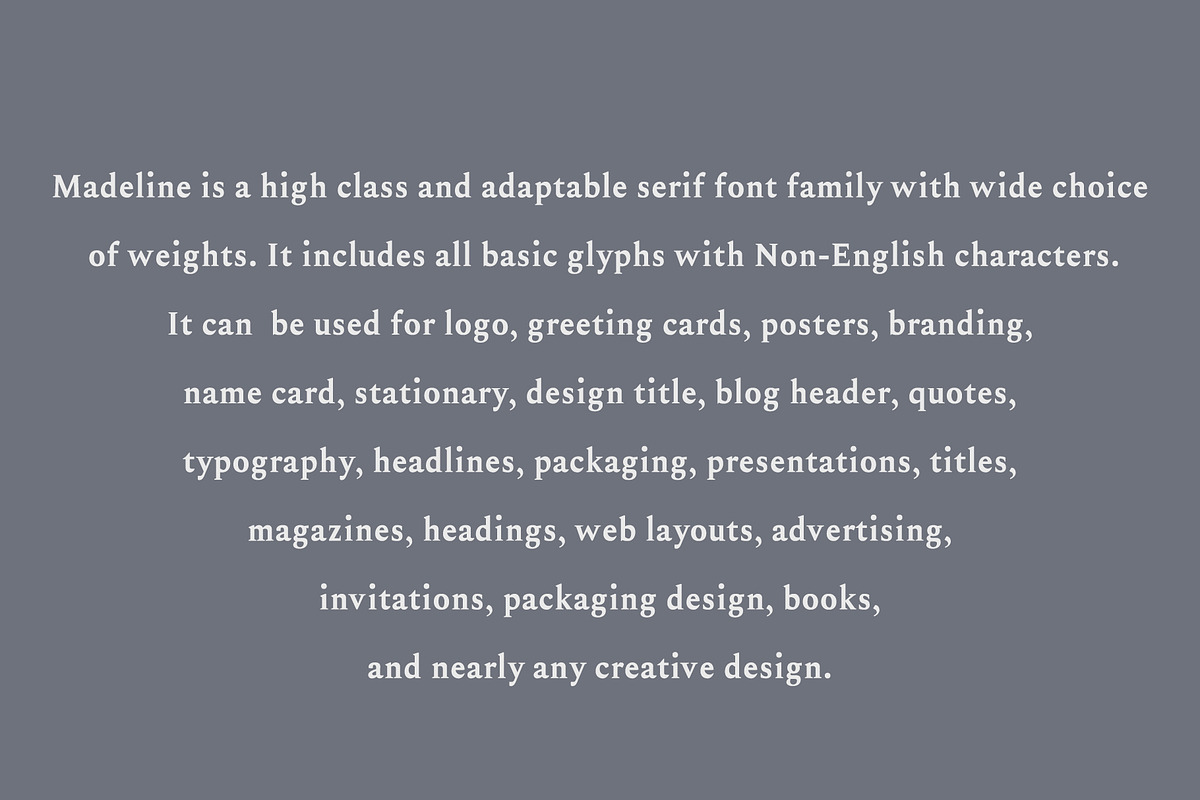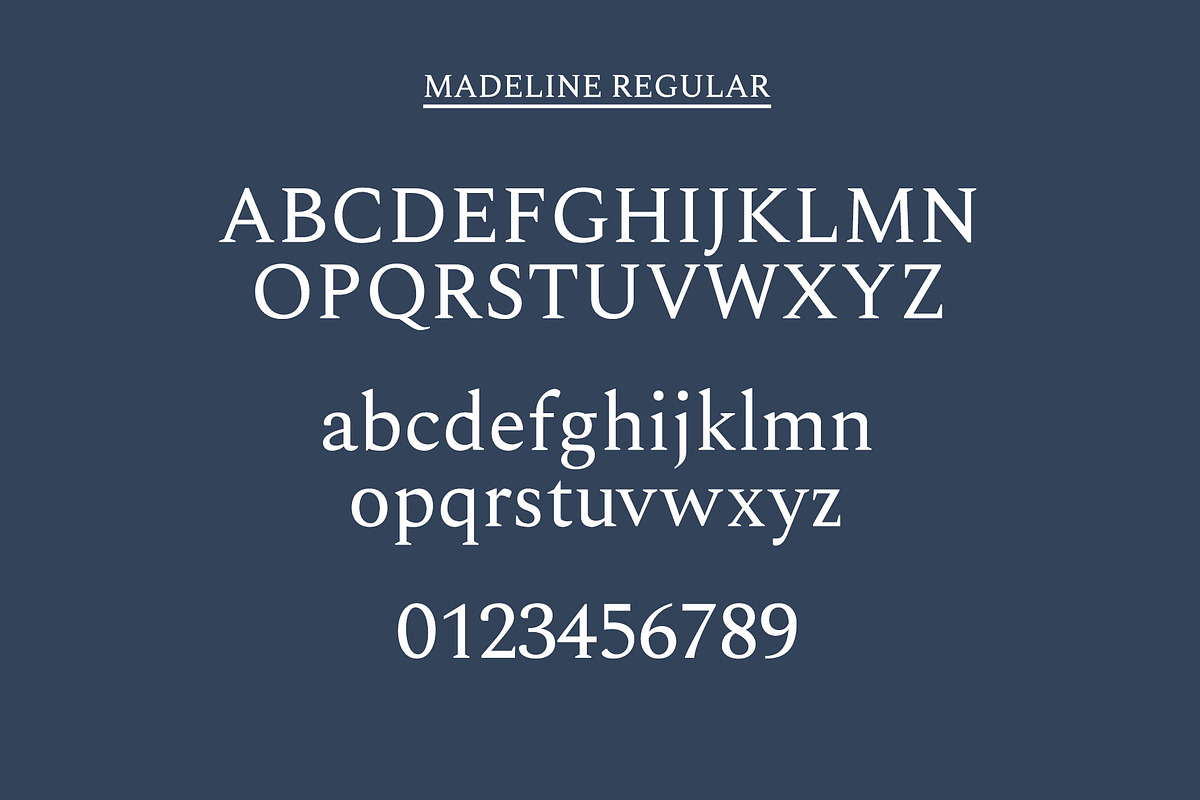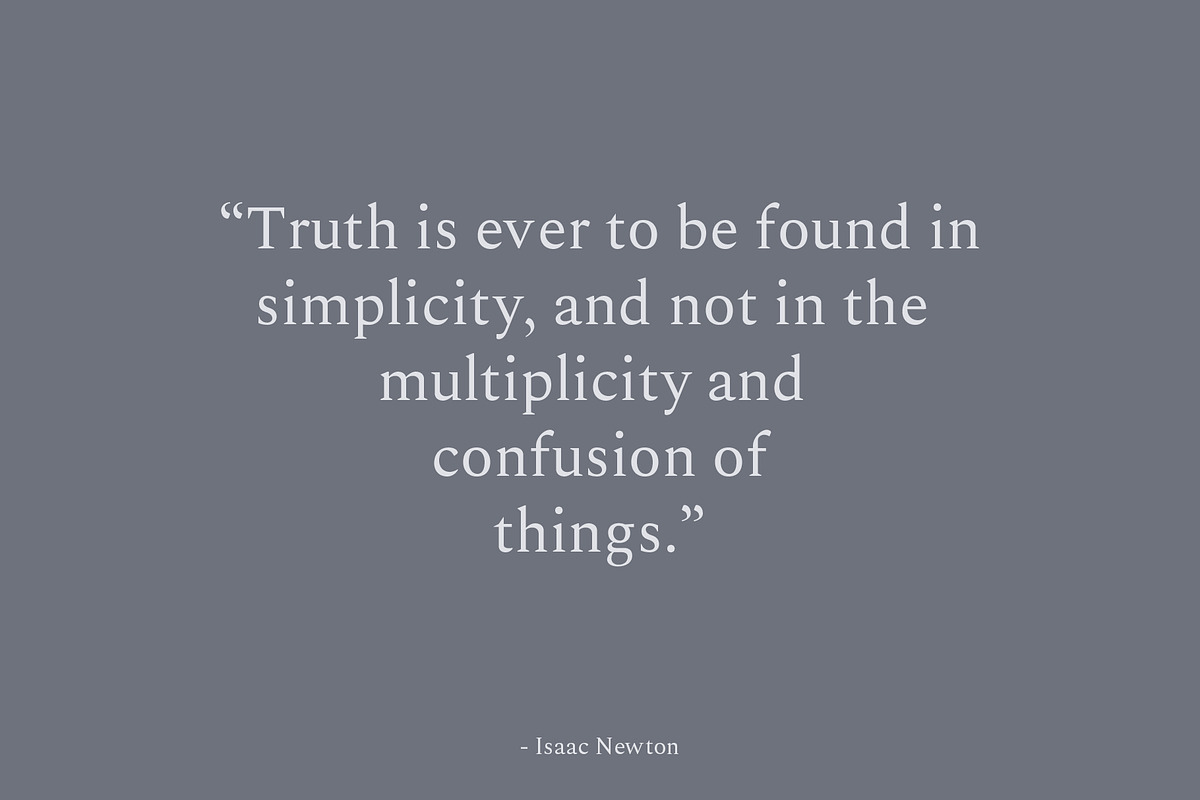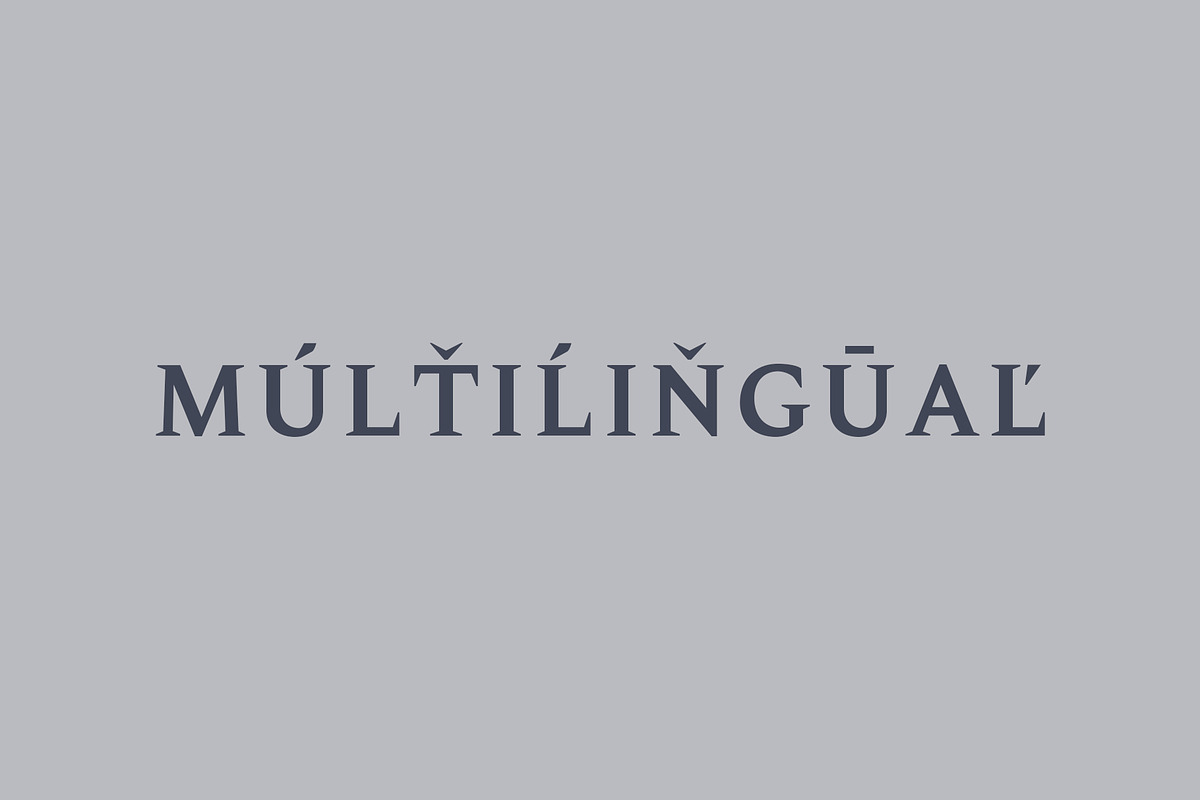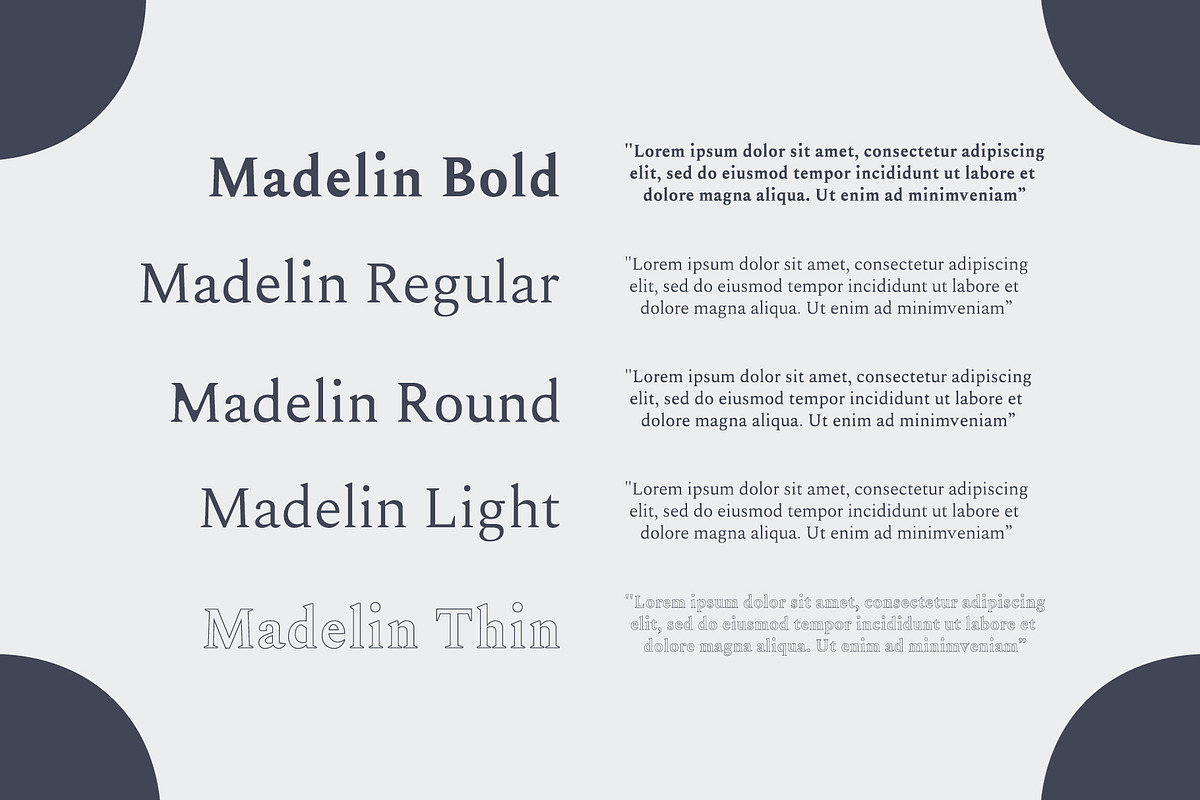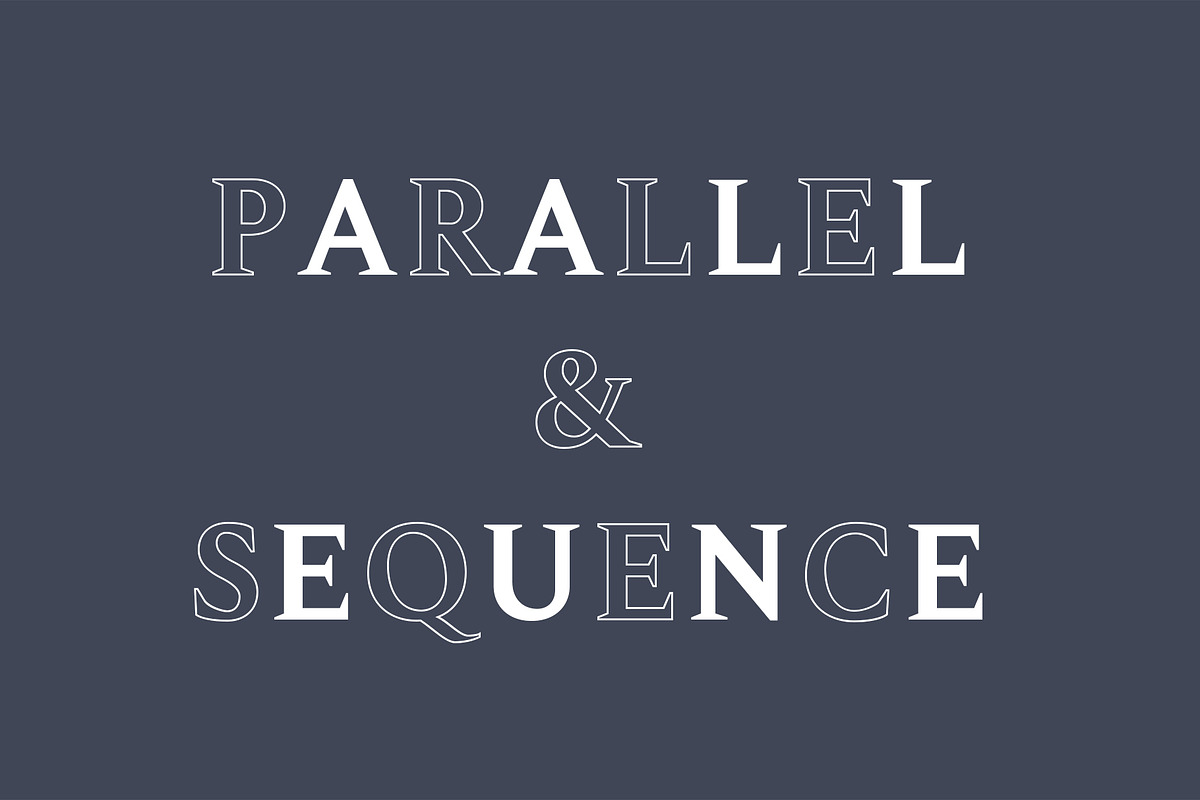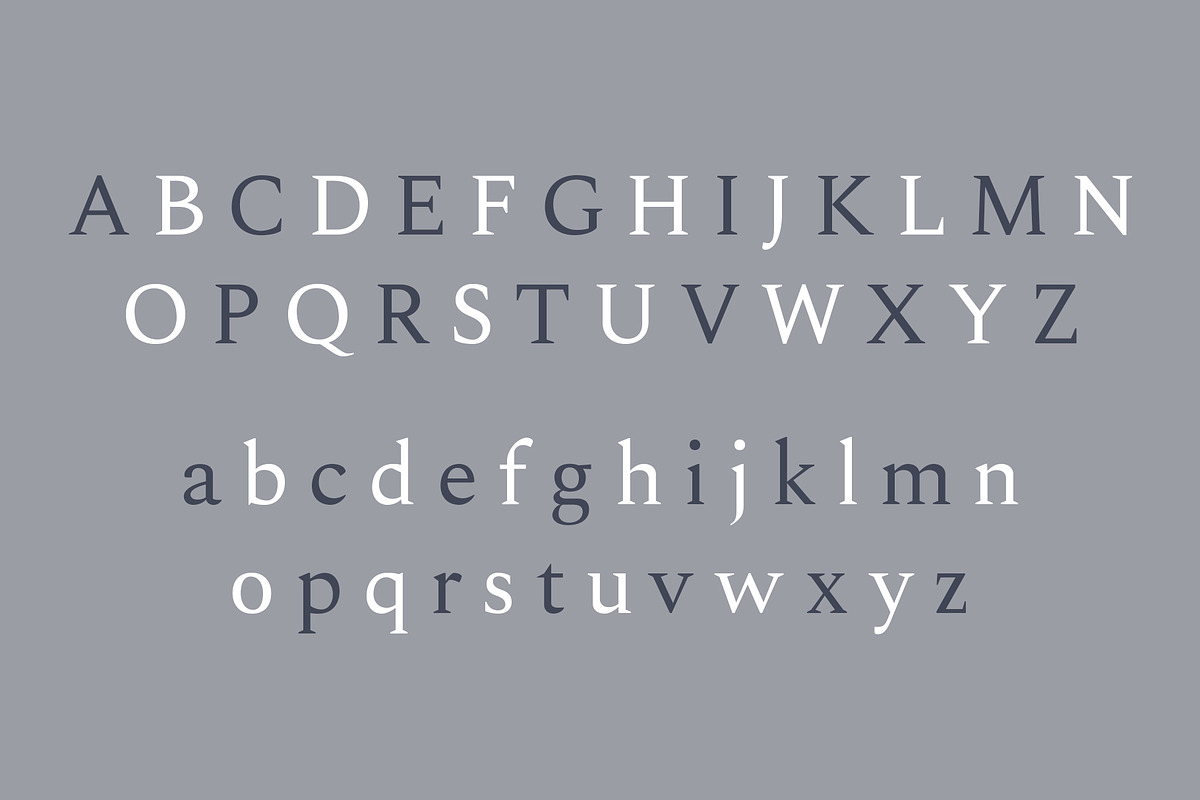
Madelin Serif Font Family
Madeline is a high class and adaptable serif font family with wide choice of weights. It includes all basic glyphs with Non-English characters. It can be used for logo, greeting cards, posters, branding, name card, stationary, design title, blog header, quotes, typography, headlines, packaging, presentations, titles, magazines, headings, web layouts, advertising, invitations, packaging design, books, and nearly any creative design.
Font Weight: Regular, Medium, Round, Outline and Bold
Madelin Serif Font Family by Creativetacos fits naturally into Branding, posters, packaging, typography.